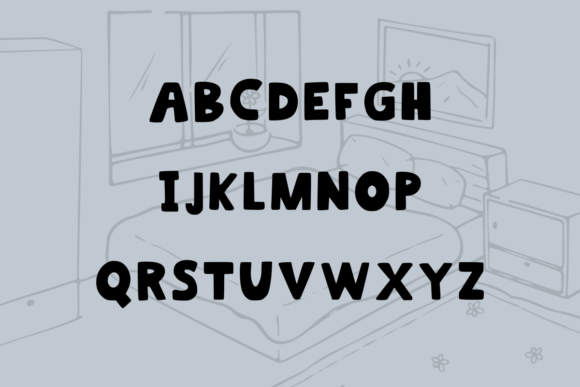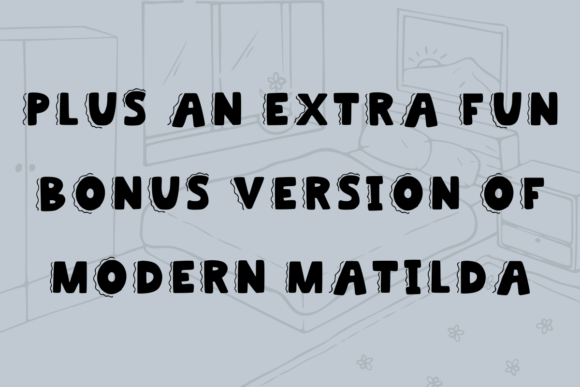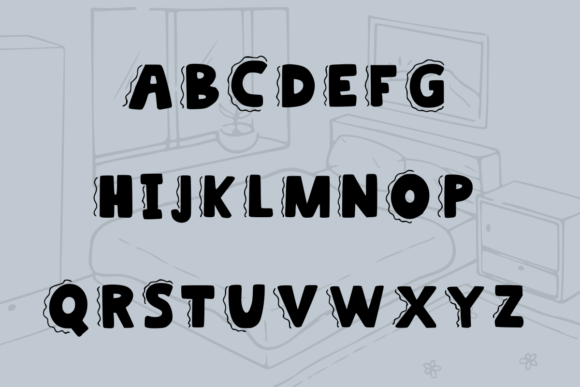
Introduction to Modern Matilda Font
Modern Matilda is a chunky handwritten display font perfect for designs that need to look modern without feeling too serious.
Each letter is unique enough to stand out from other fonts yet polished enough to work in a variety of projects Modern Matilda Extra has the same core font as Modern Matilda but with a fun extra squiggle to make the font more playful.
Key Features of Modern Matilda Font